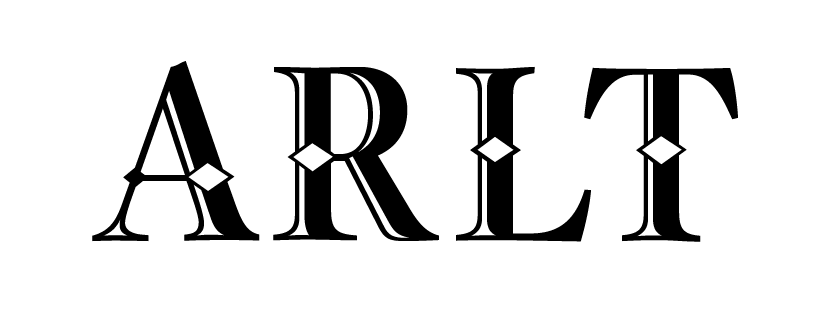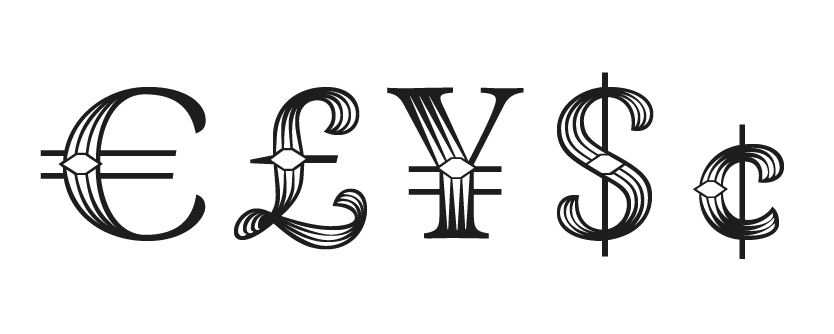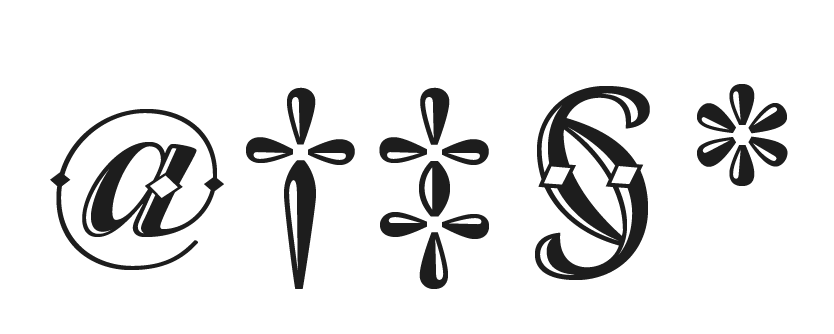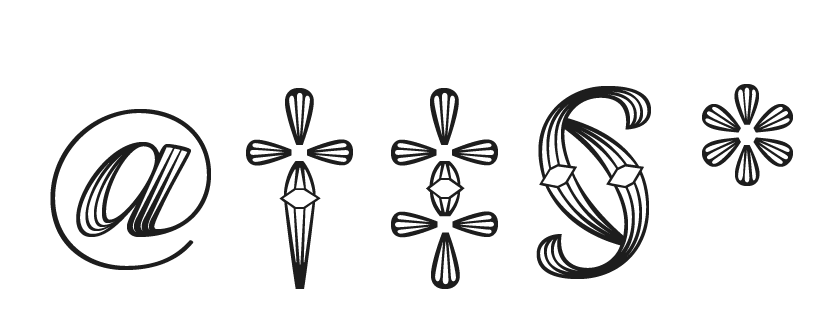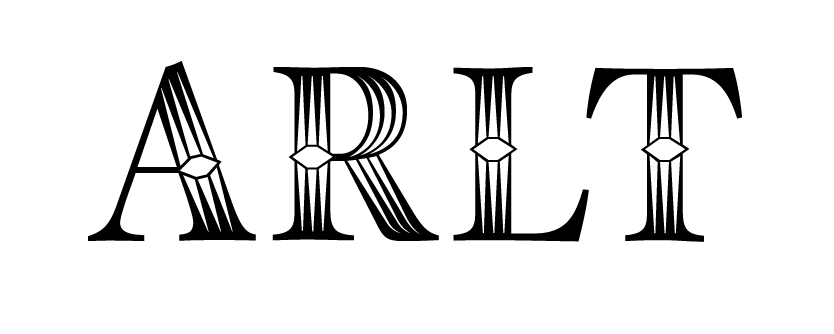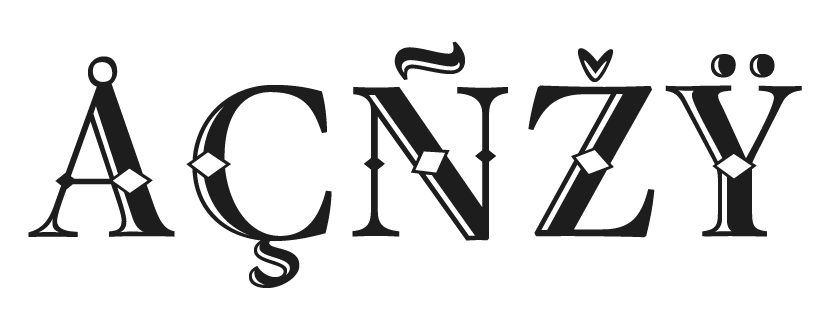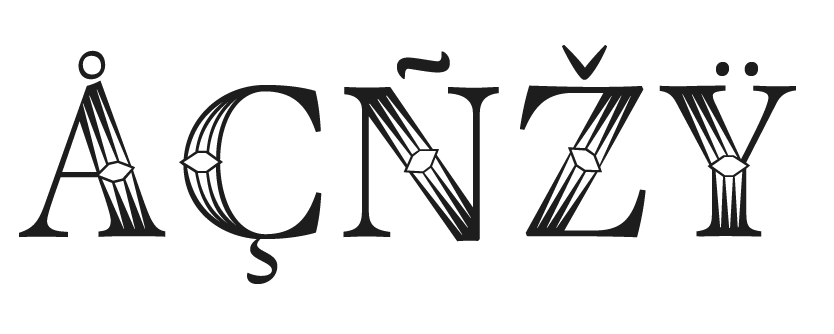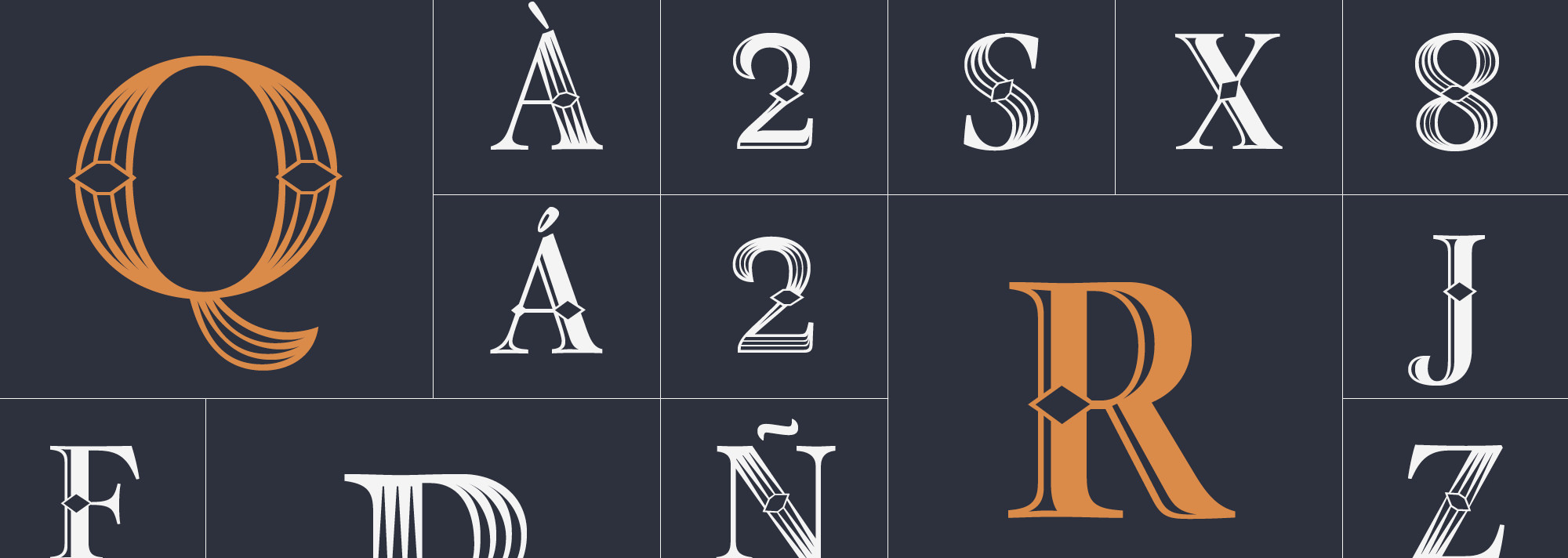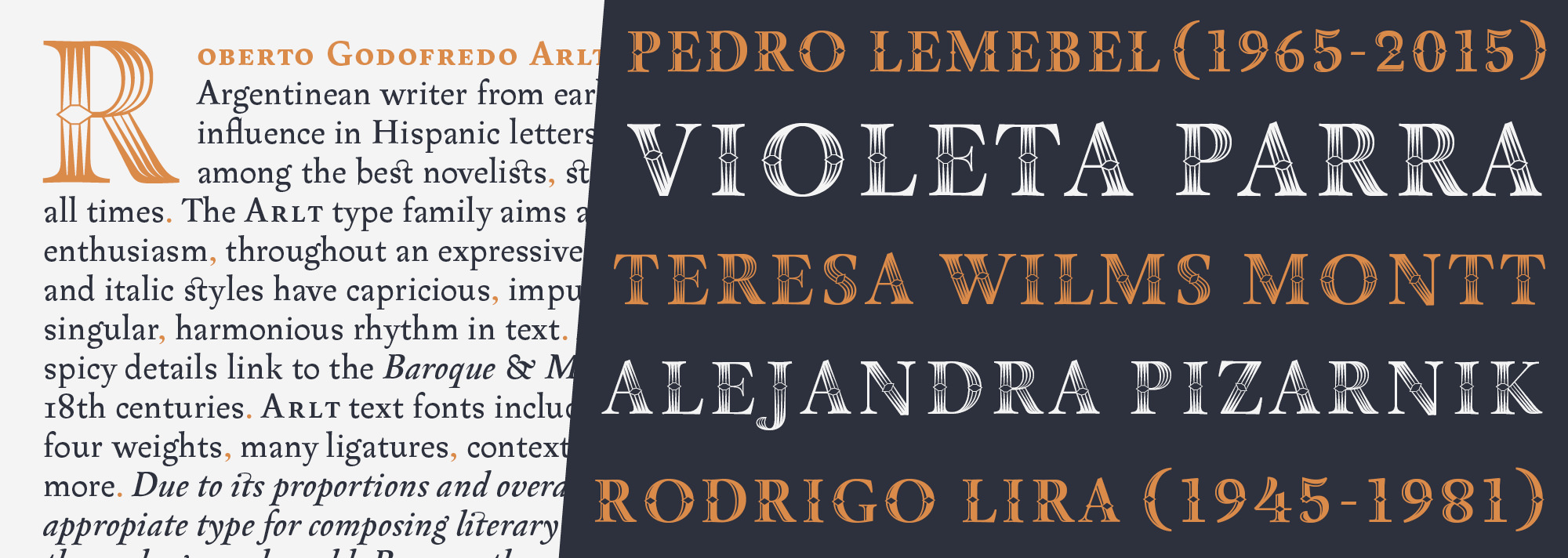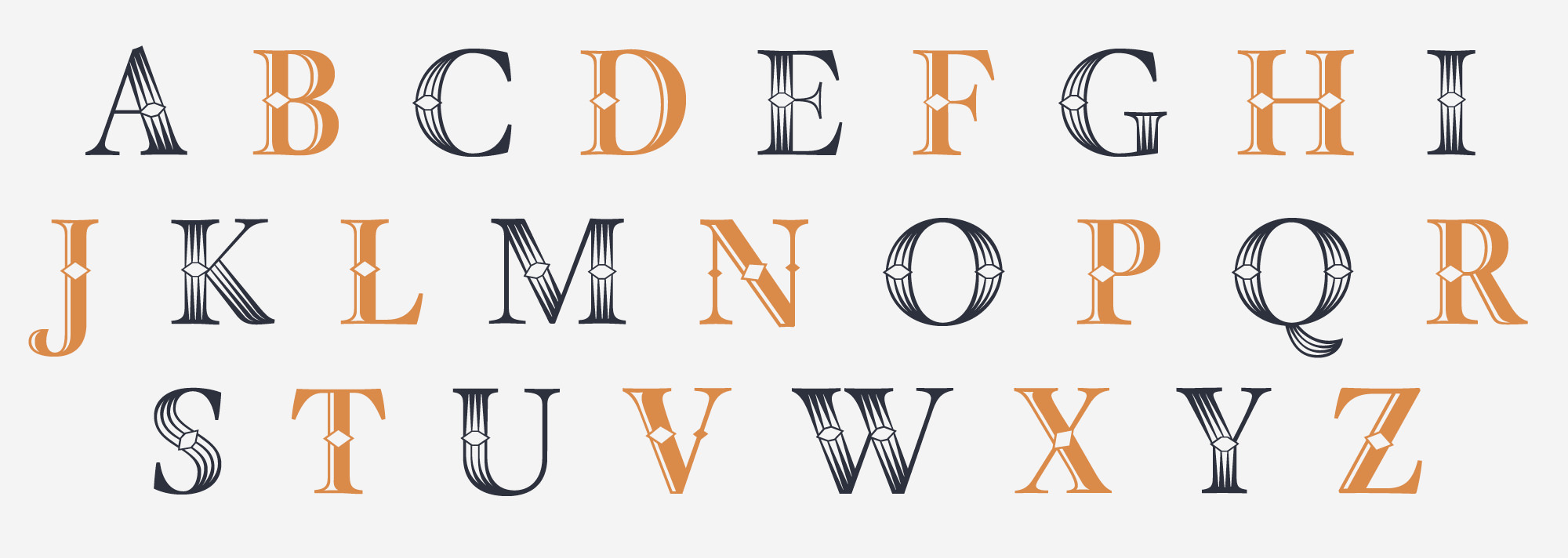
Arlt Deco
An ornamental titling set
Arlt Deco is a set of two elegant ornamental caps, ideal for setting initials, headings, pieces of lettering, logos, inscriptions, short texts. Both fonts were loosely inspired by 19th century decorative types. Arlt Deco 2 in particular will show its charm at huge sizes. The idea for its name came from the hilarious difficulty in pronouncing “Arlt” correctly and the corresponding similarity in pronunciation between “Arlt Deco” and “Art Deco”.
Arlt Deco
Designed by Alejandro Lo Celso.
Styles
Arlt Deco 1
Arlt Deco 2
Features & Specials
arlt deco 1
Basic Latin
standard ligatures
lining figures
basic monetaries
basic editorial glyphs
arlt deco 2
Basic Latin
standard ligatures
lining figures
basic monetaries
basic editorial glyphs